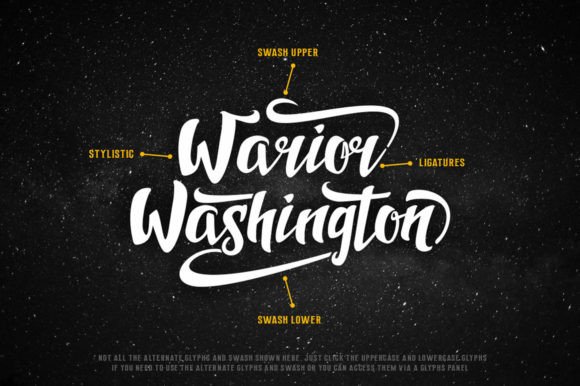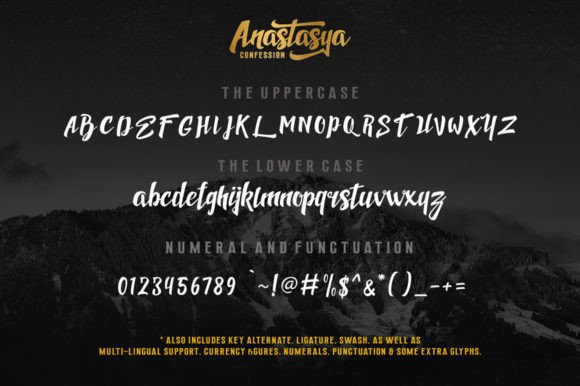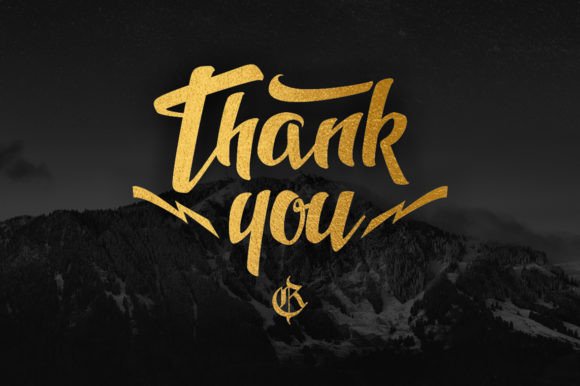
Introduction to Anastasya Confession Font
Anastasya Confession is a new typeface with a classy, elegant, and vintage feel character set.
To create the beautiful combination, just mix the uppercase and lowercase then mix with the alternative glyphs and play with swash .
Key Features of Anastasya Confession Font